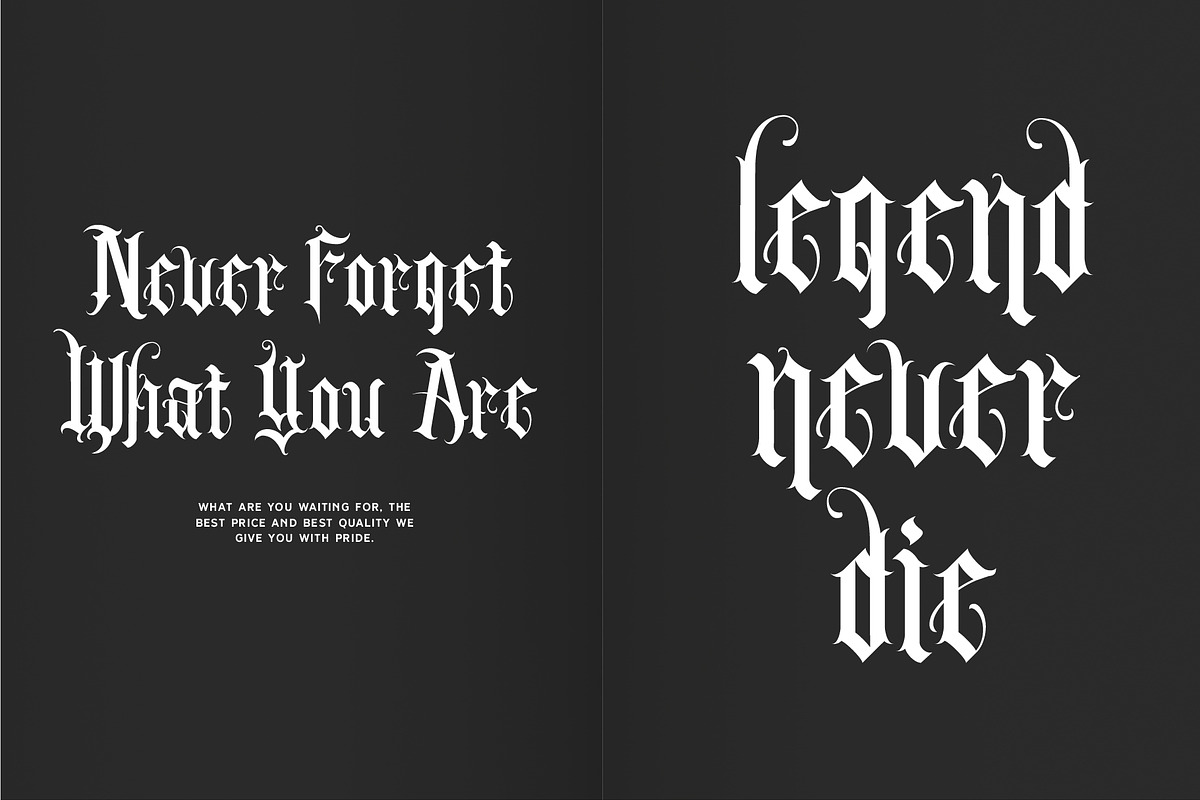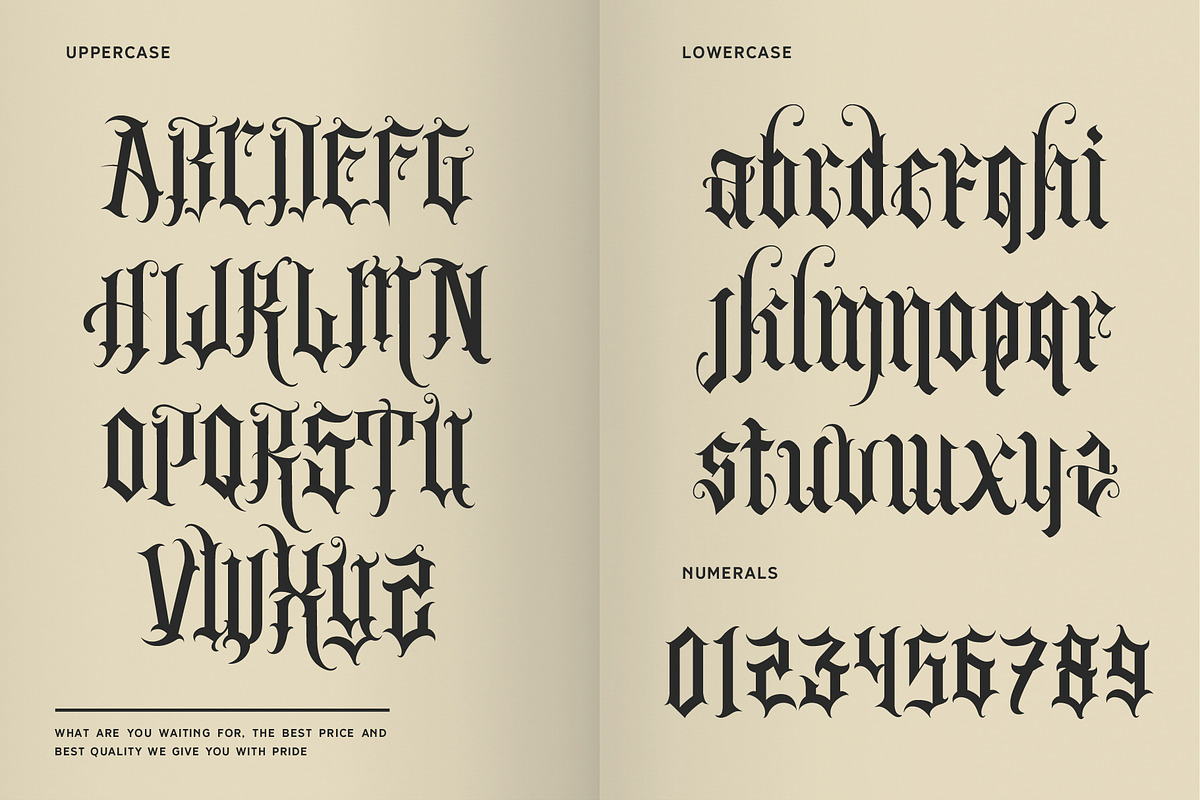
Black letter tattoo font
MHM JUXRAZOR is one typeface from MHM studio, which was made and developed specifically by us from made out of pride and passion for the desire and need to create. This font is intended for those of you who like unique styles. What are you waiting for, the best price and best quality we give you with pride.
Why Black letter tattoo font is worth a look
Black letter tattoo font by letrasdegs fits naturally into Branding, posters, packaging, typography.